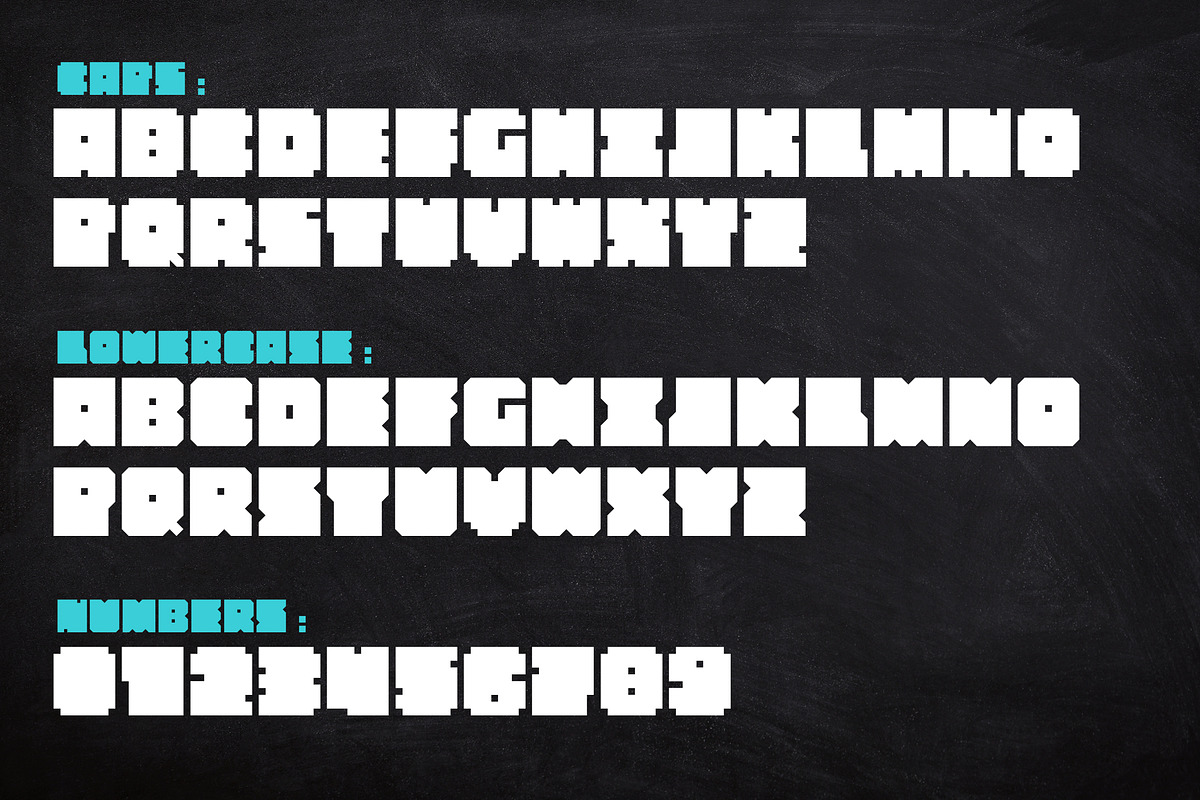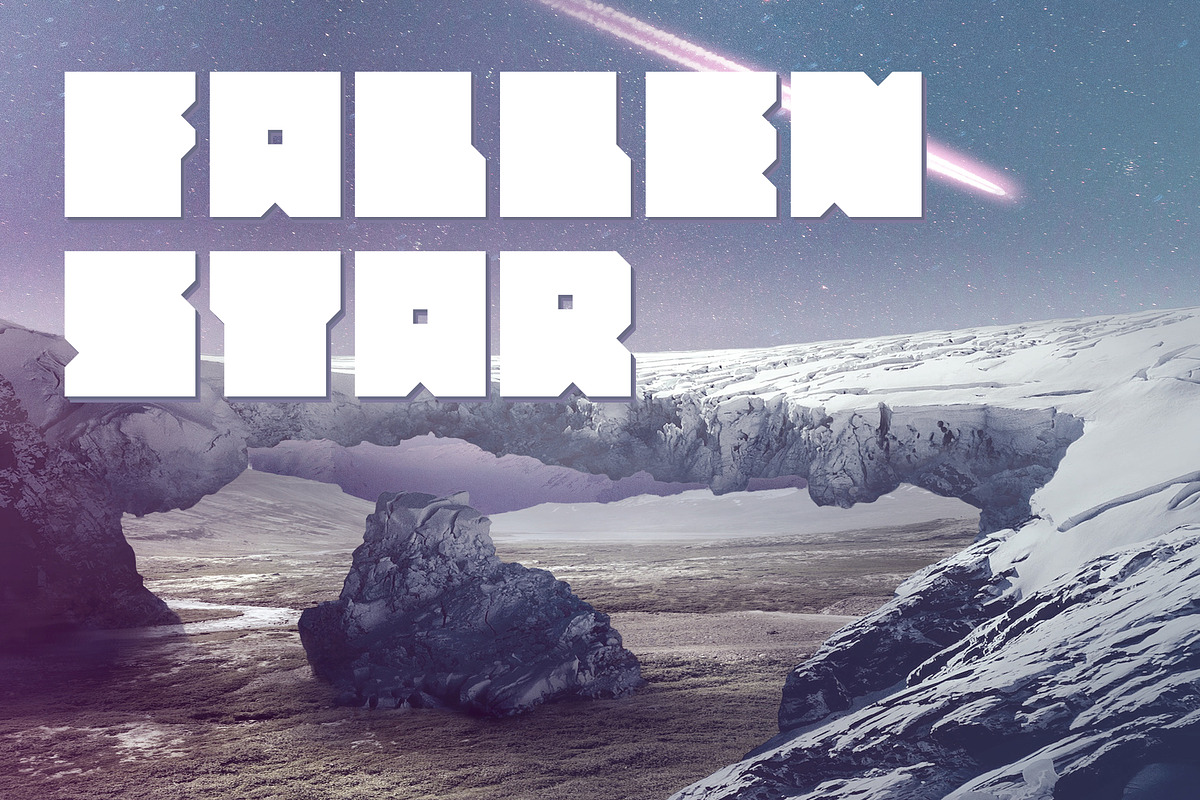
Mistry Box - Boldest Display Font
Mistry Box is heavy bold display font, perfectly fits for big titles, branding, logos and much more..
- Included uppercase, lowercase, numbers, punctuation’s, some alternates and ligatures.
Mistry Box - Boldest Display Font by Dasagani fits naturally into Branding, posters, packaging, typography.